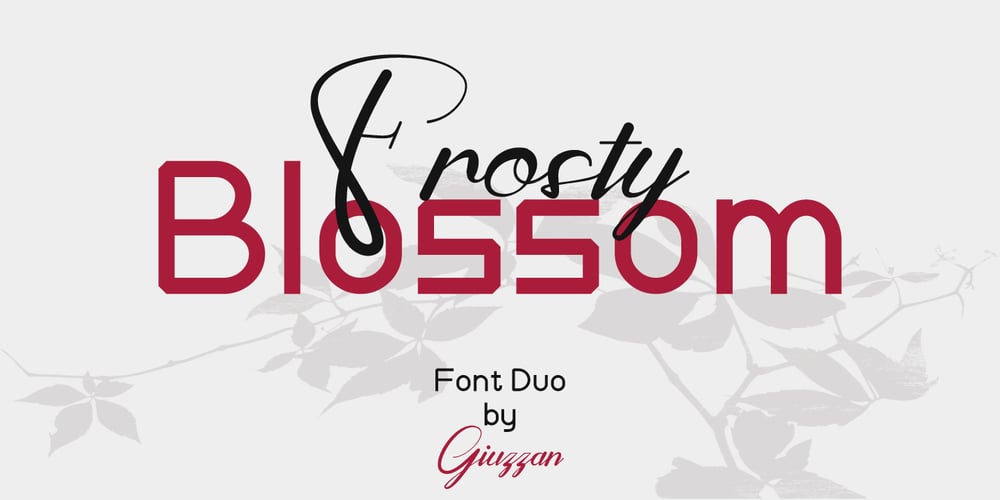
Frosty Blossom Duo Font Family was designed by Muhamad Fauzan and published by Giuzzan. Frosty Blossom Duo contains 2 styles and family package options. Meet Frosty Blossom Font Duo! This lovely pair combines a fun decorative sans with a graceful script font. Perfect for creating beautiful invitations, trendy branding, and playful designs, Frosty Blossom adds a touch of magic to any project. Let your creativity flourish with this charming and versatile font duo!